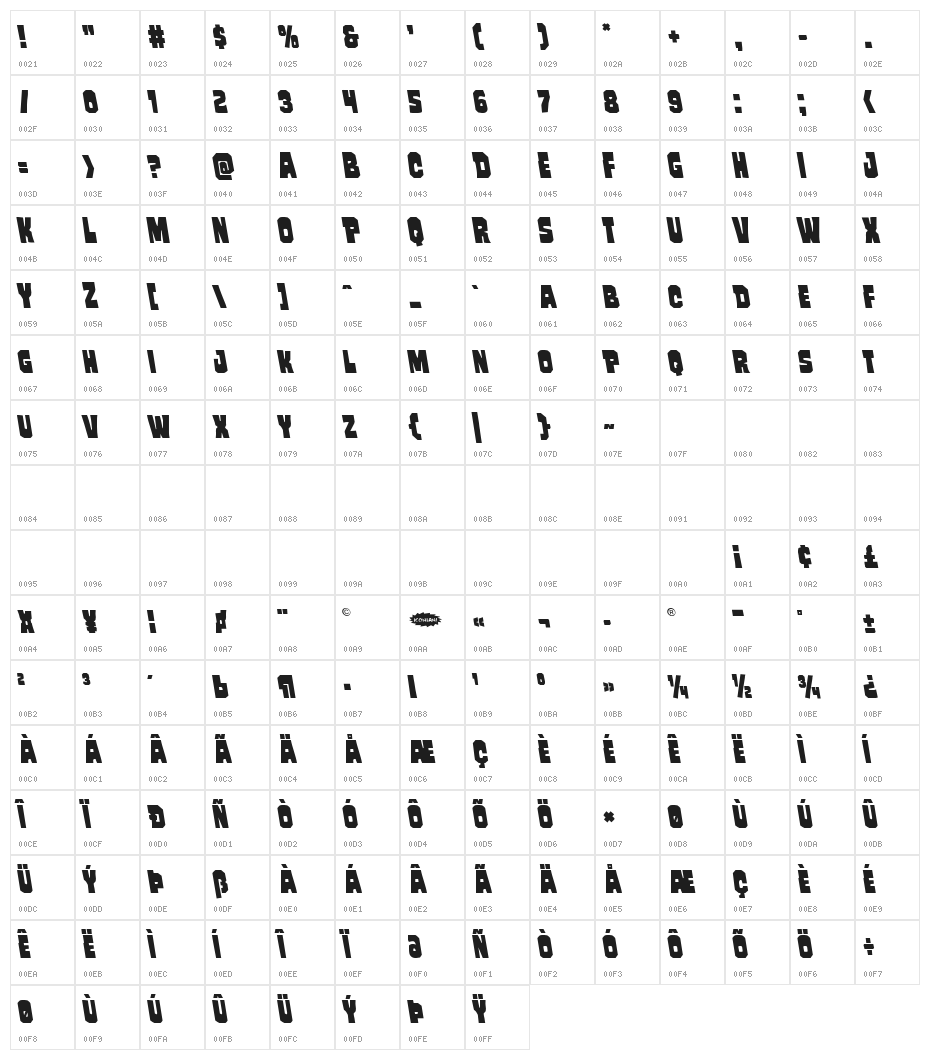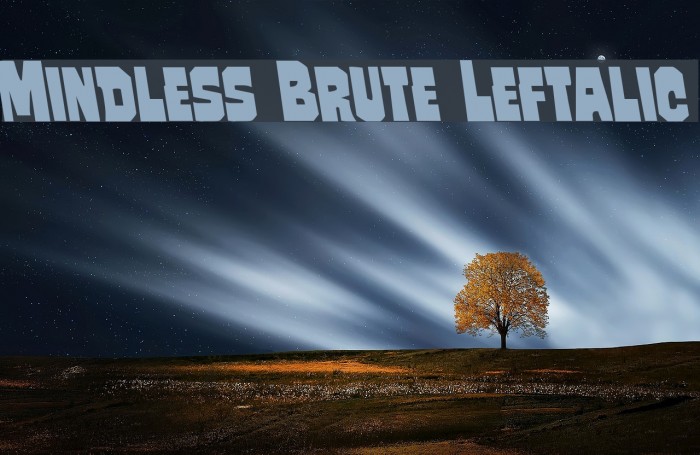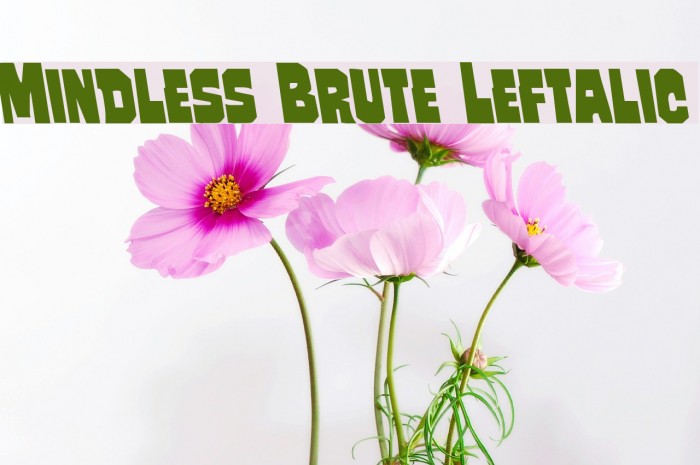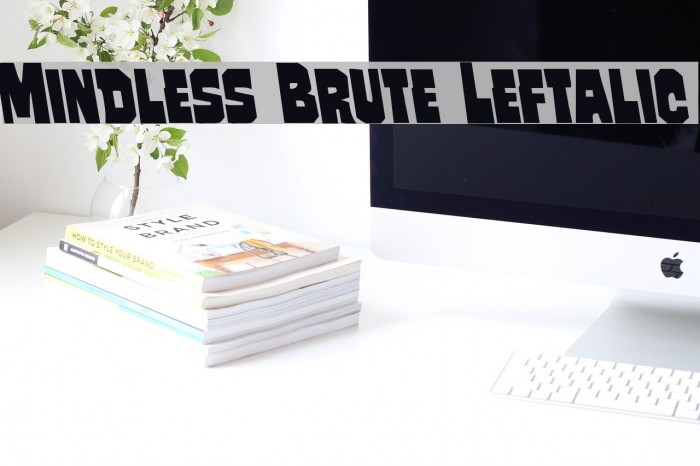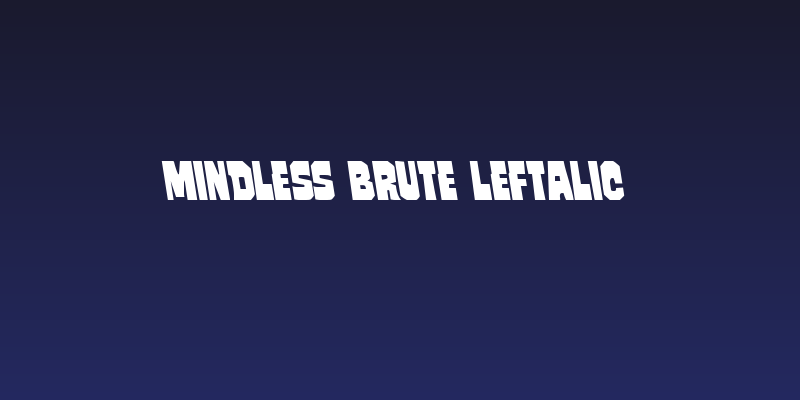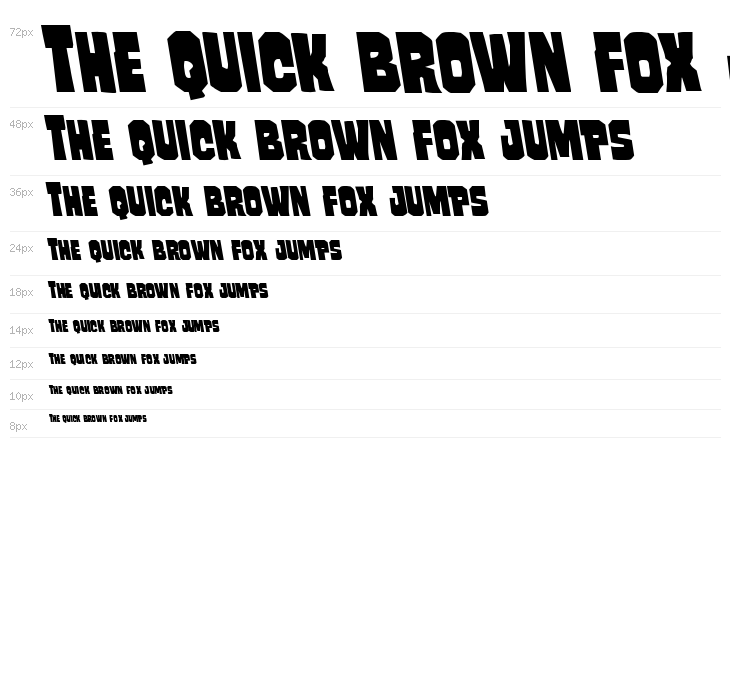
Mindless Brute Leftalic Font
Mindless Brute Leftalic Description
This font features a bold and aggressive style with a distinct leftward slant, giving it a dynamic and forceful appearance. The characters are blocky and robust, with thick strokes that convey strength and impact. The angular edges and geometric shapes contribute to its commanding presence, making it ideal for attention-grabbing designs. The uppercase and lowercase letters maintain a consistent weight, ensuring uniformity across text. The numerals and special characters are equally bold, complementing the overall aesthetic. This font is perfect for projects that require a strong and assertive visual statement.
| Proposed Projects | Ideal for posters, headlines, logos, and branding that require a bold statement. |